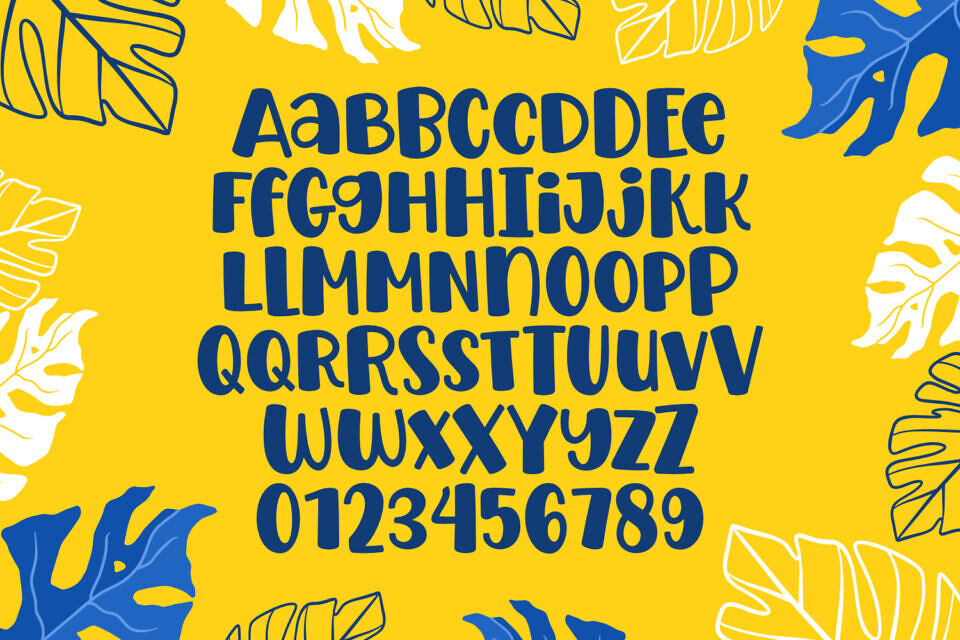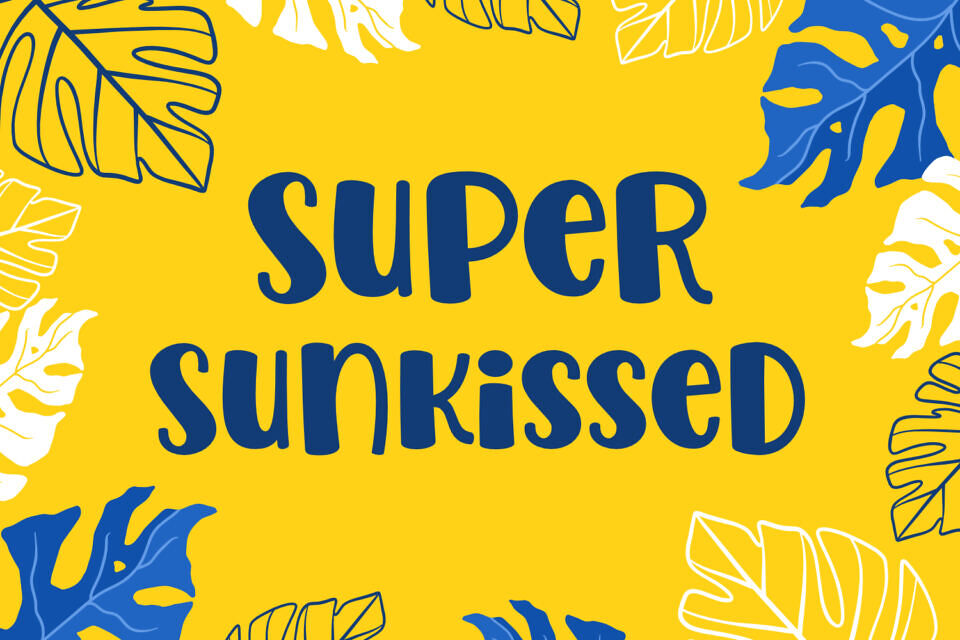
Super Sunkissed Font
Super Sunkissed is a playful, cartoon-style display font designed by fsuarez913. Its bold, rounded characters and vibrant personality make it ideal for eye-catching headlines, posters, and branding projects. With 439 glyphs, it offers versatility for various creative endeavors.